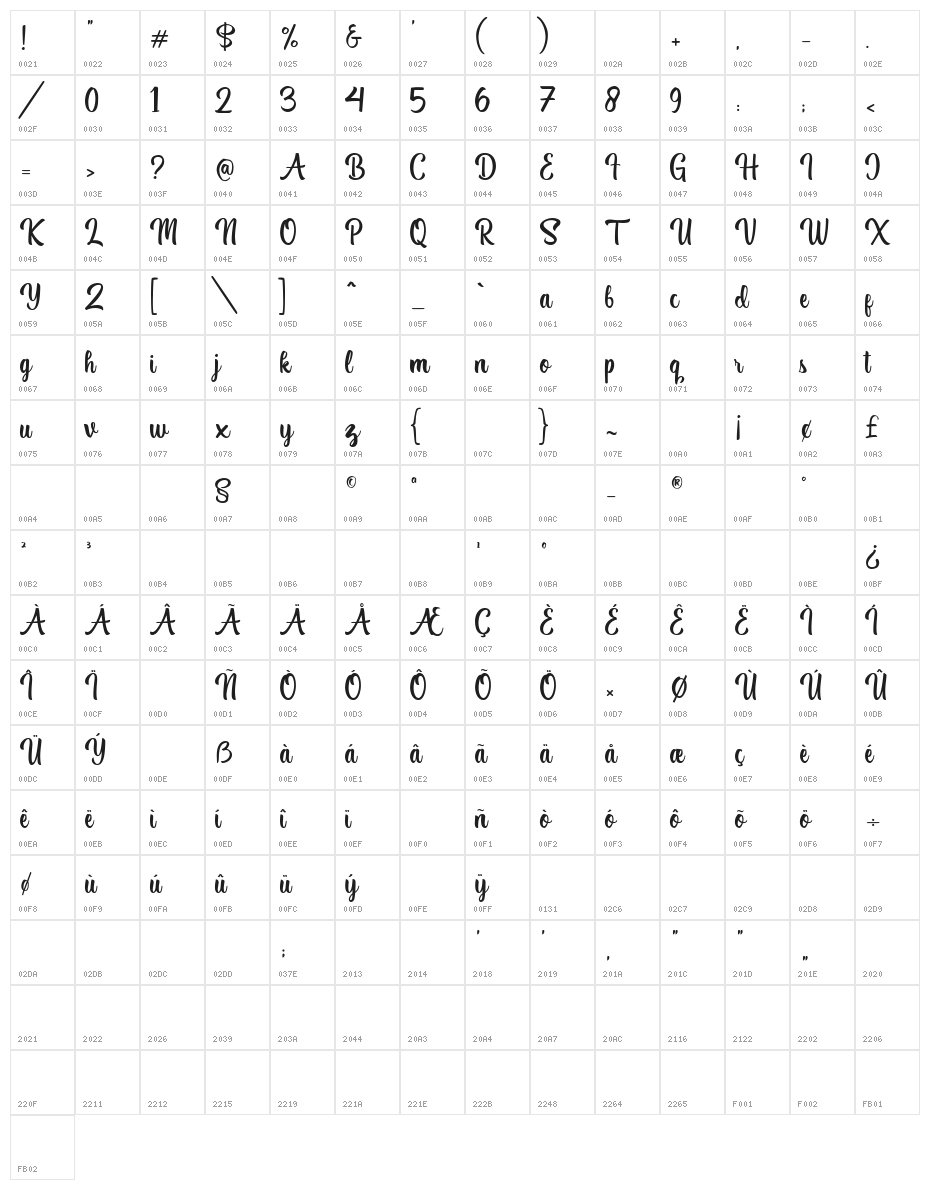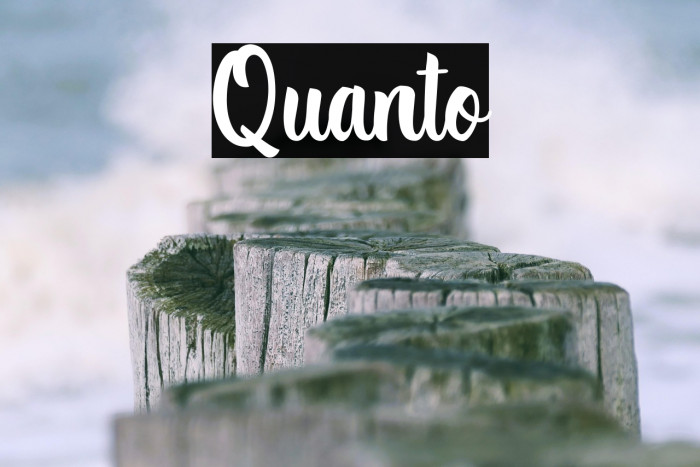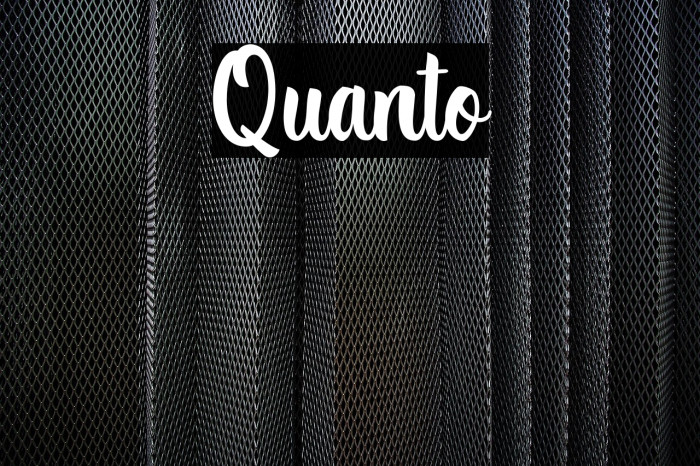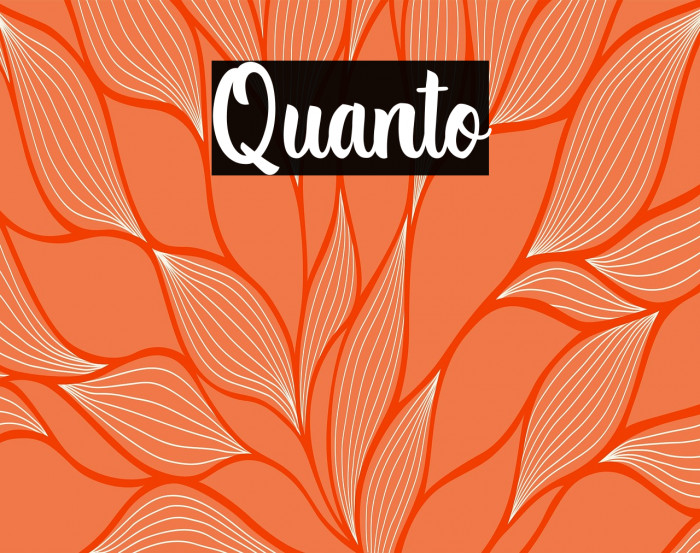
Quanto Font
Quanto Description
This font features a lively and dynamic script style with a handwritten feel. The uppercase letters are bold and slightly slanted, giving a sense of movement and energy. The lowercase letters are more rounded and connected, enhancing the cursive appearance. Numbers and special characters maintain the same playful and flowing style, making them cohesive with the alphabet. The overall design is both elegant and approachable, suitable for a variety of creative applications.
| Use Case | Logos, Headlines, Invitations |
| Proposed Projects | Ideal for wedding invitations, greeting cards, branding, and social media graphics. |